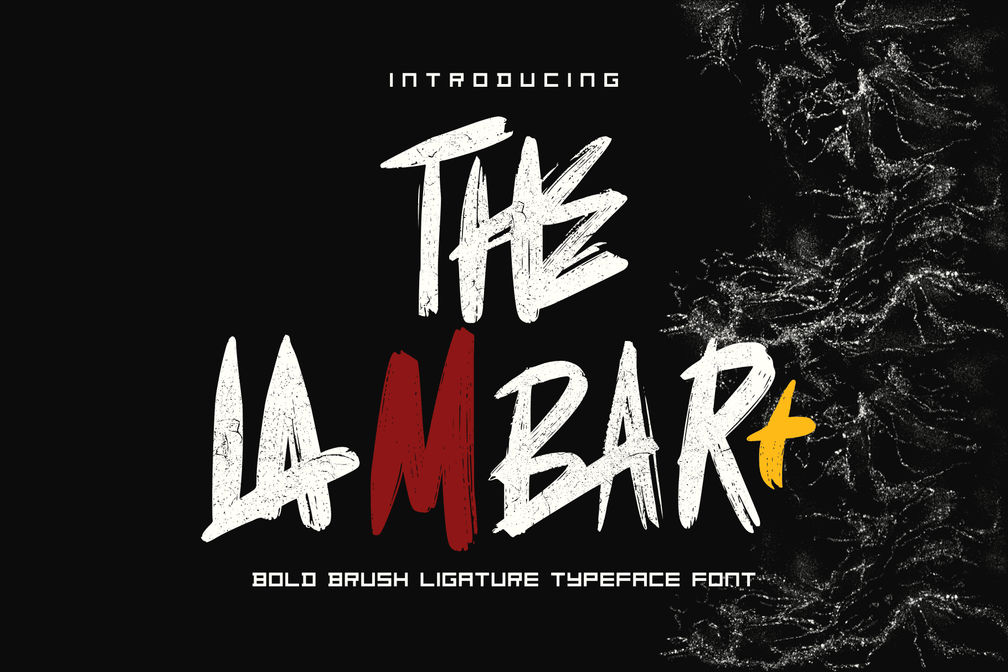
The Lambart
The Lambart – Bold Brush Ligature Typeface Font
The Lambart is a bold and expressive brush script typeface with built-in ligatures and dry-brush texture. Designed to make a statement, this font oozes attitude and energy—perfect for powerful branding, merchandise, social media graphics, and music-related designs.
• Bold Brush Aesthetic: Crafted with dynamic strokes and an authentic dry brush texture that mimics real hand-lettering.
• Built-in Ligatures: Includes dozens of natural ligatures that give your text a fluid and organic look.
• Ideal for Impactful Designs: Perfect for music covers, apparel, logos, product packaging, posters, YouTube thumbnails, and edgy quotes.
• High Contrast: The thick strokes and tight spacing create strong visibility in both print and digital formats.